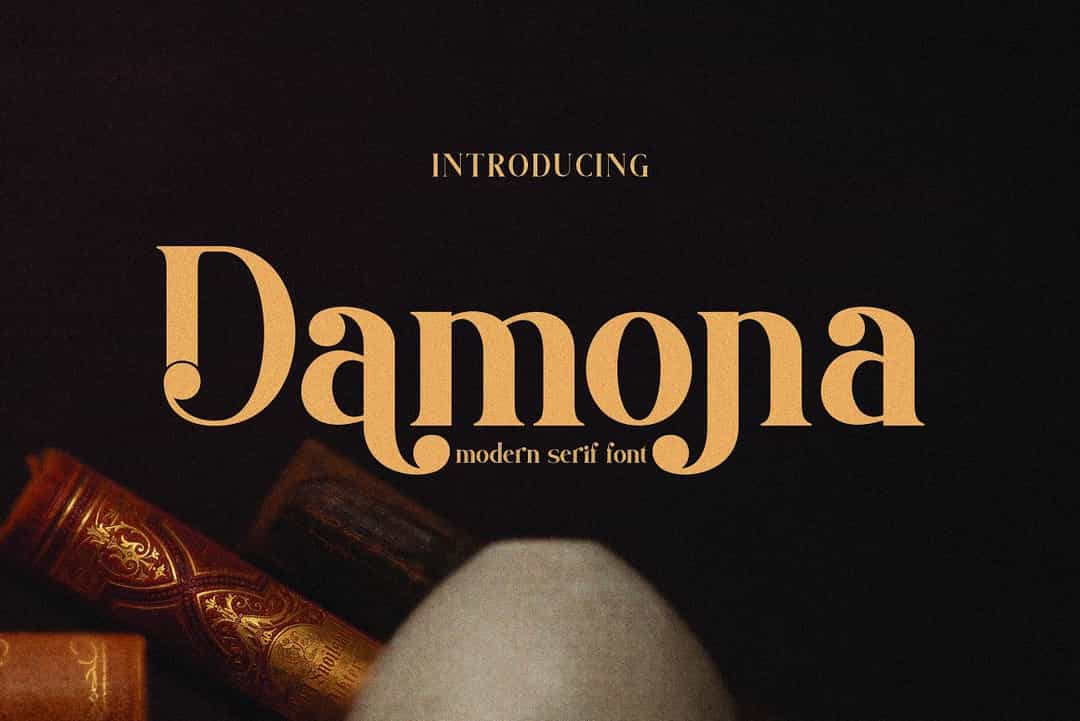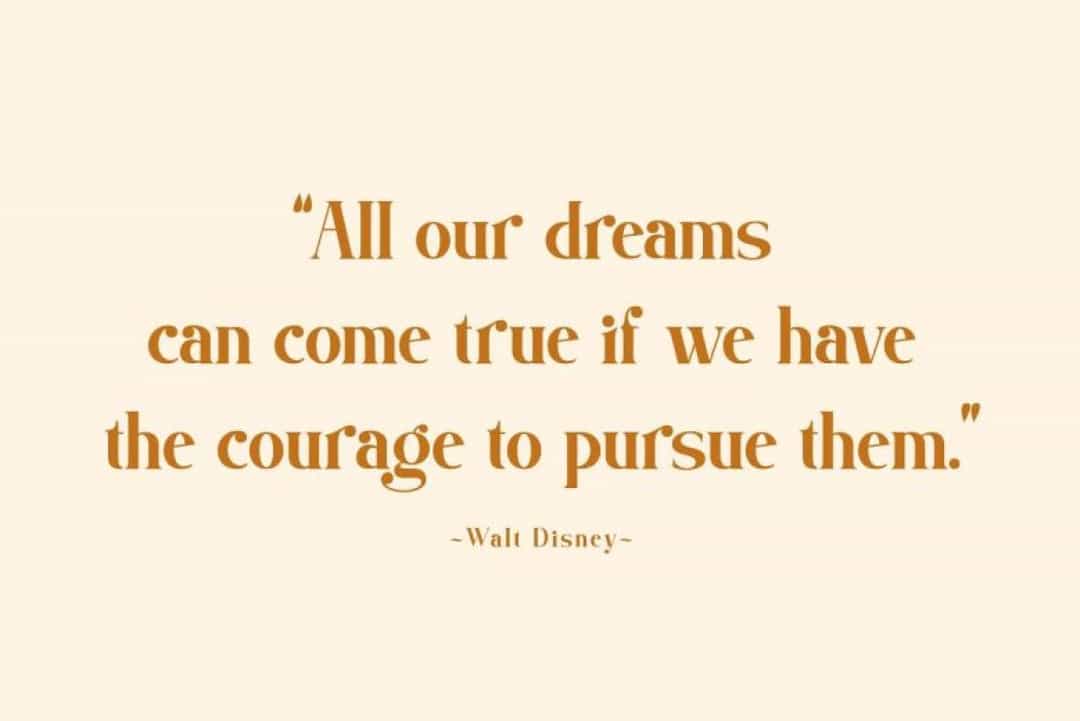
Damona is a sleek retro serif typeface ideal for projects featuring retro themes. Use it on posters and T-shirts, branding materials, logos, business cards, photographs, quotes and more – check out other characters to add variety!